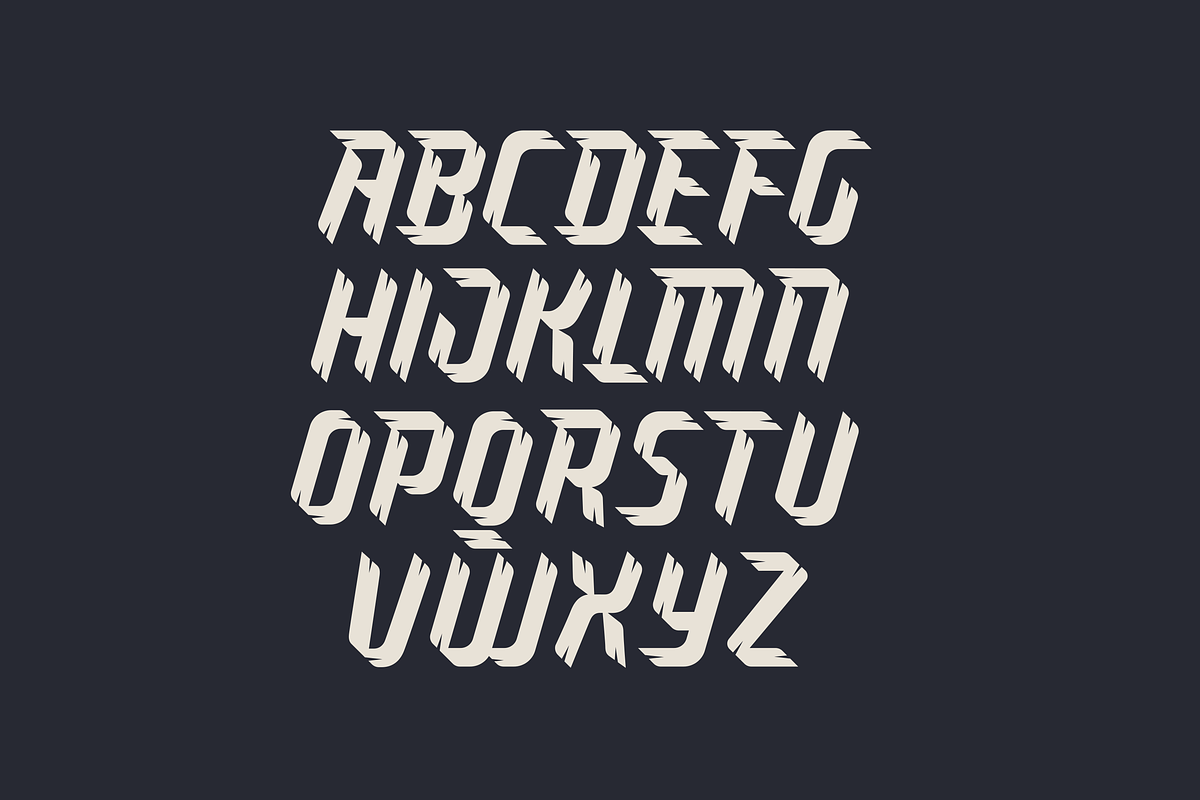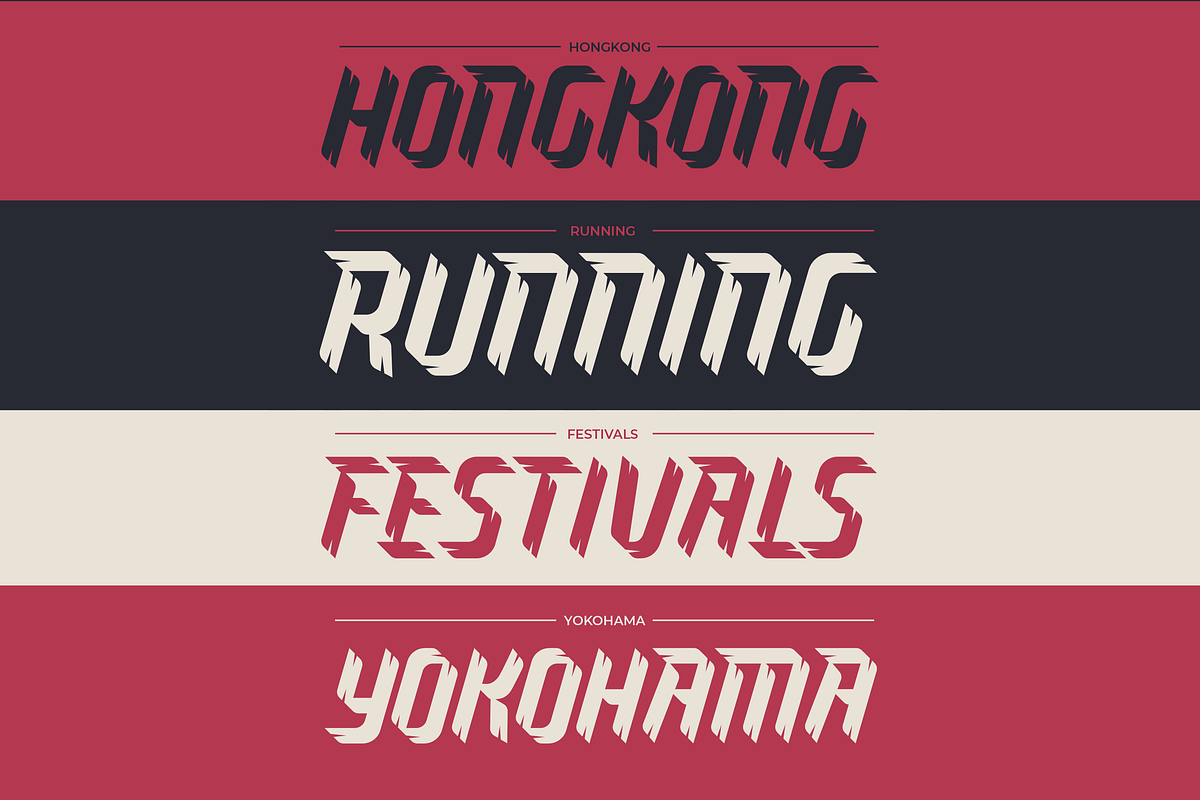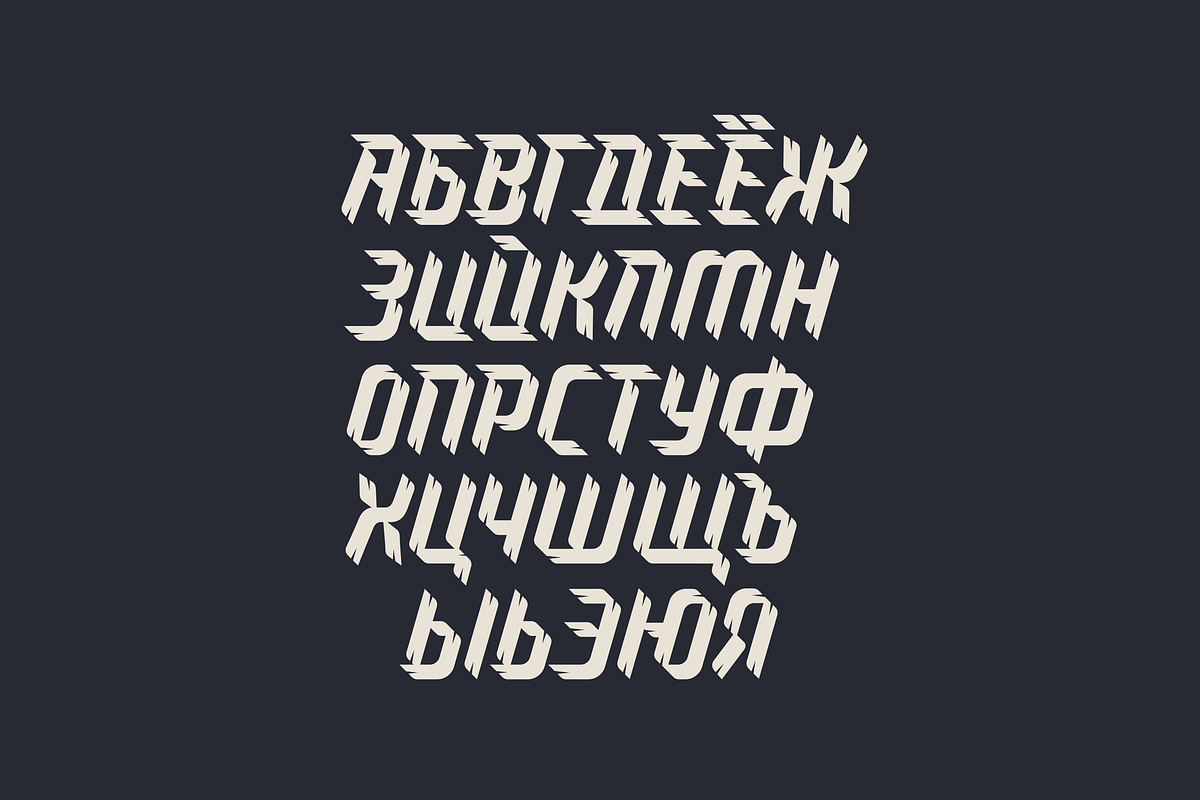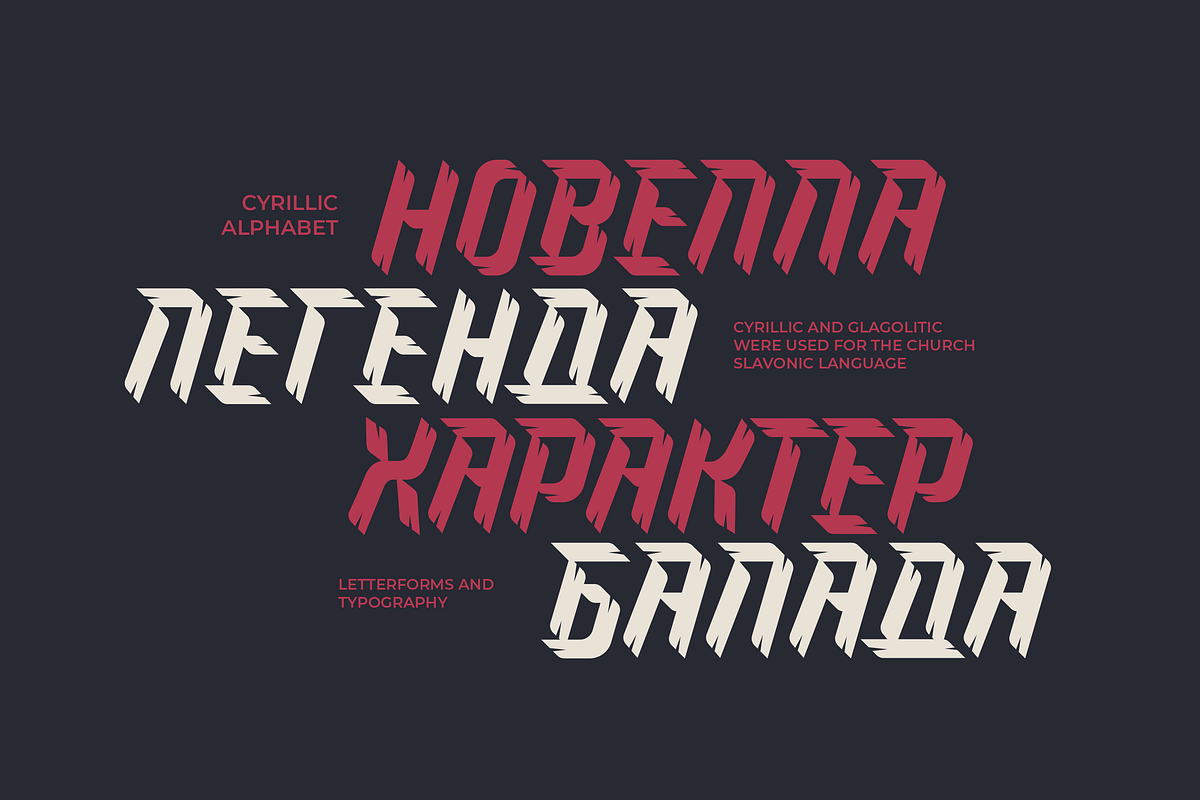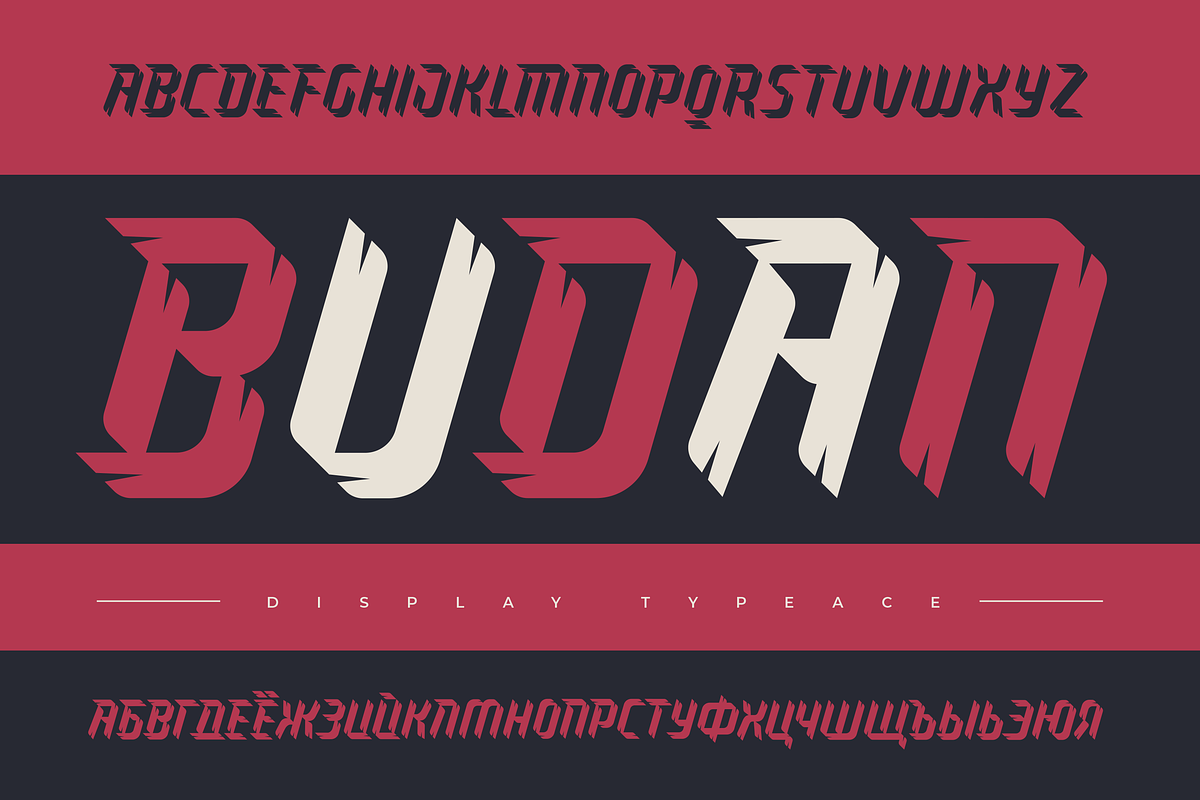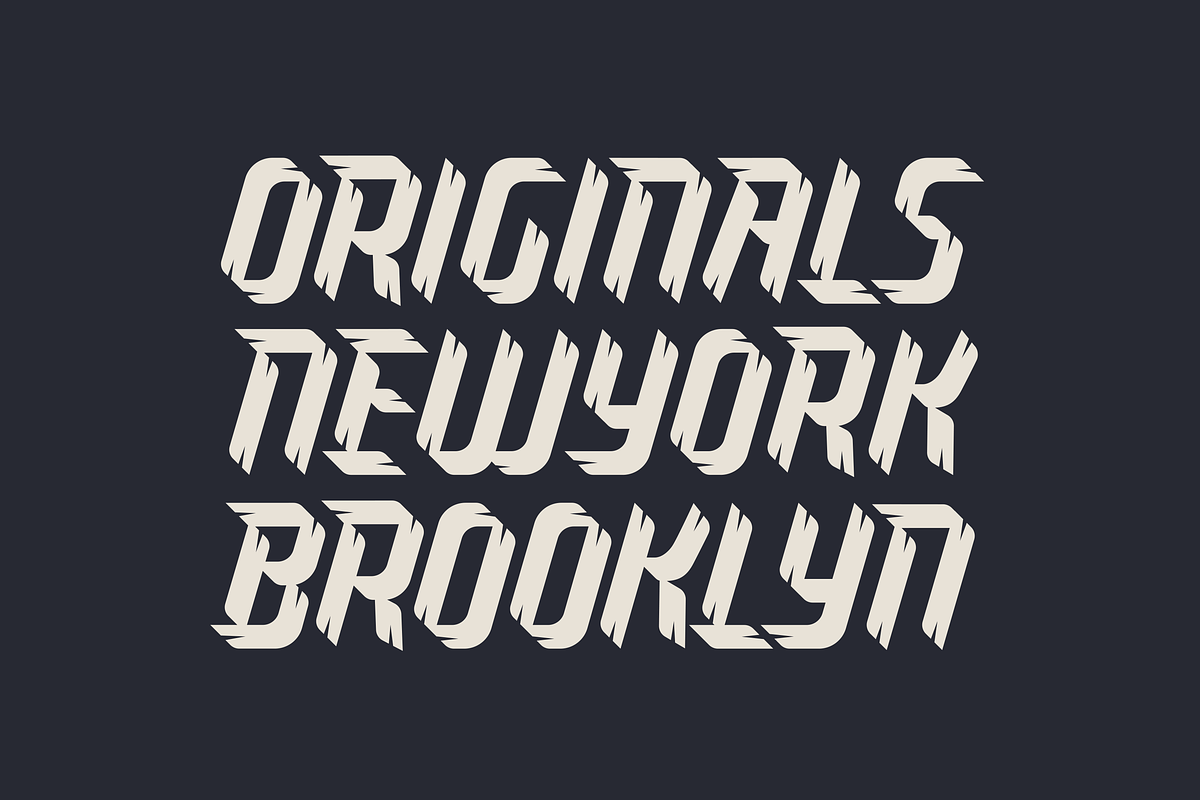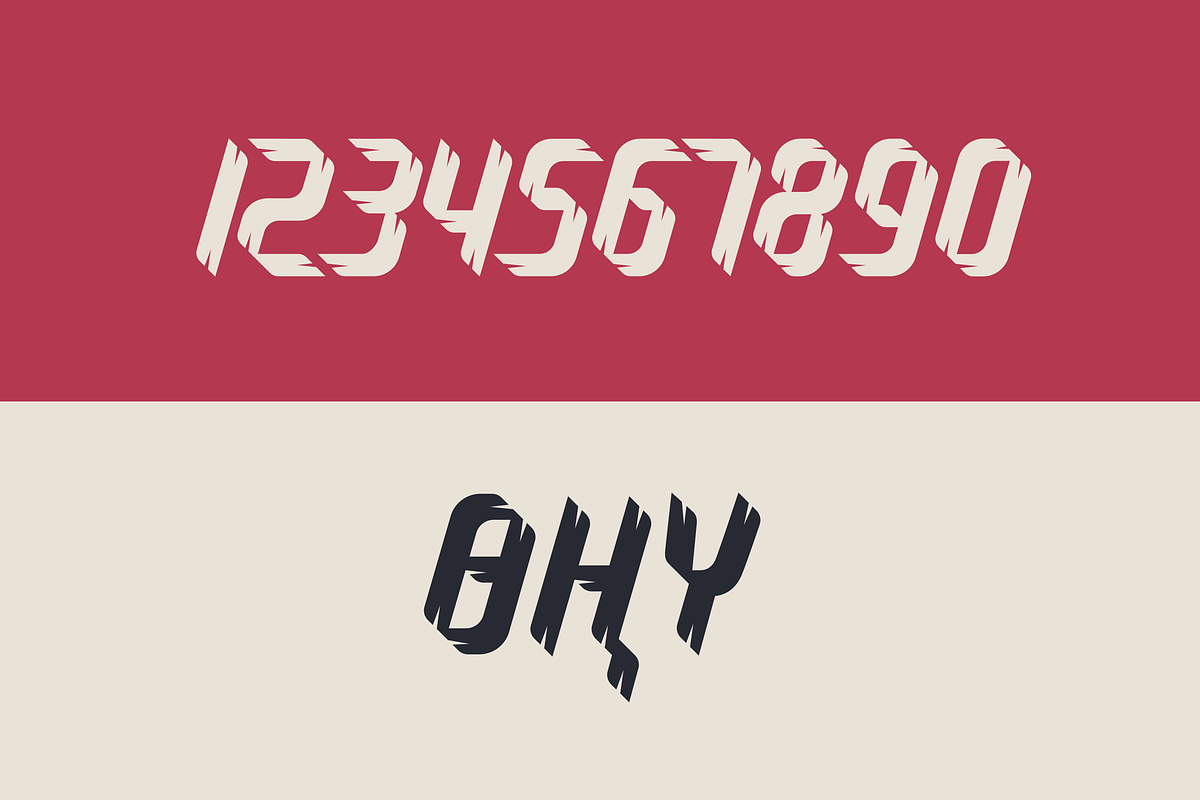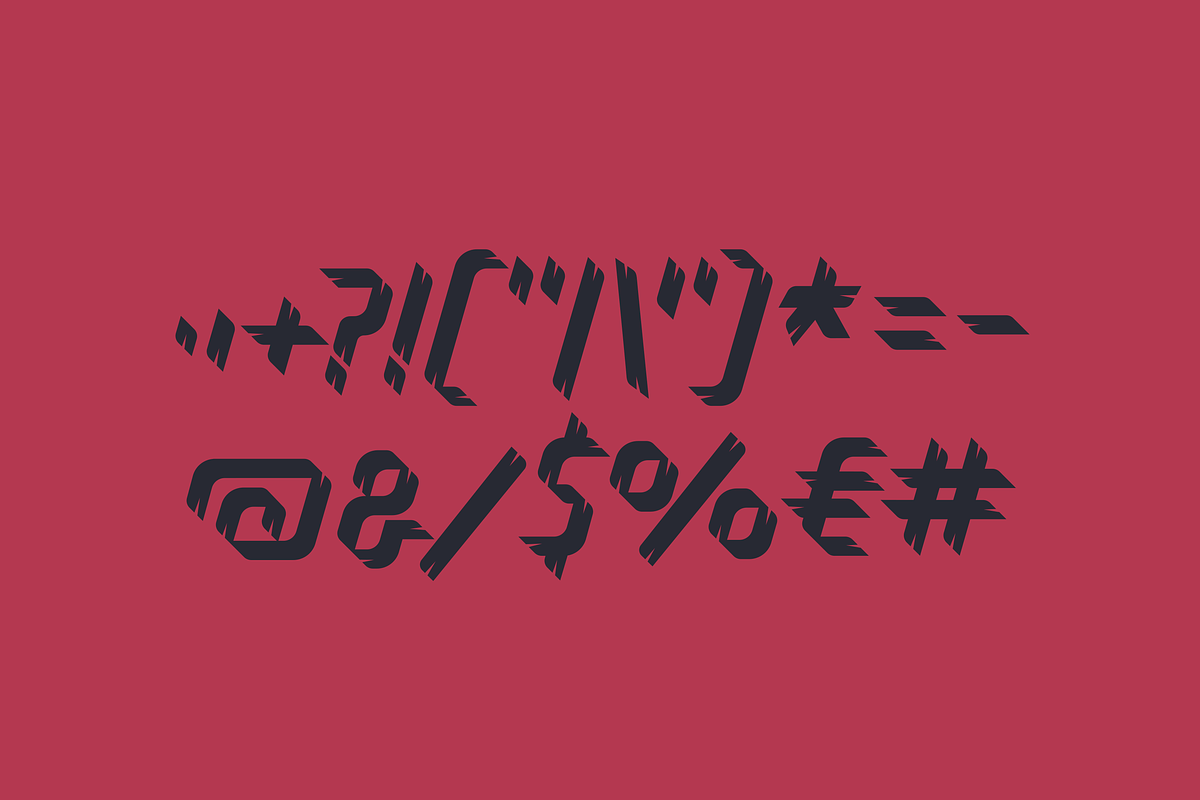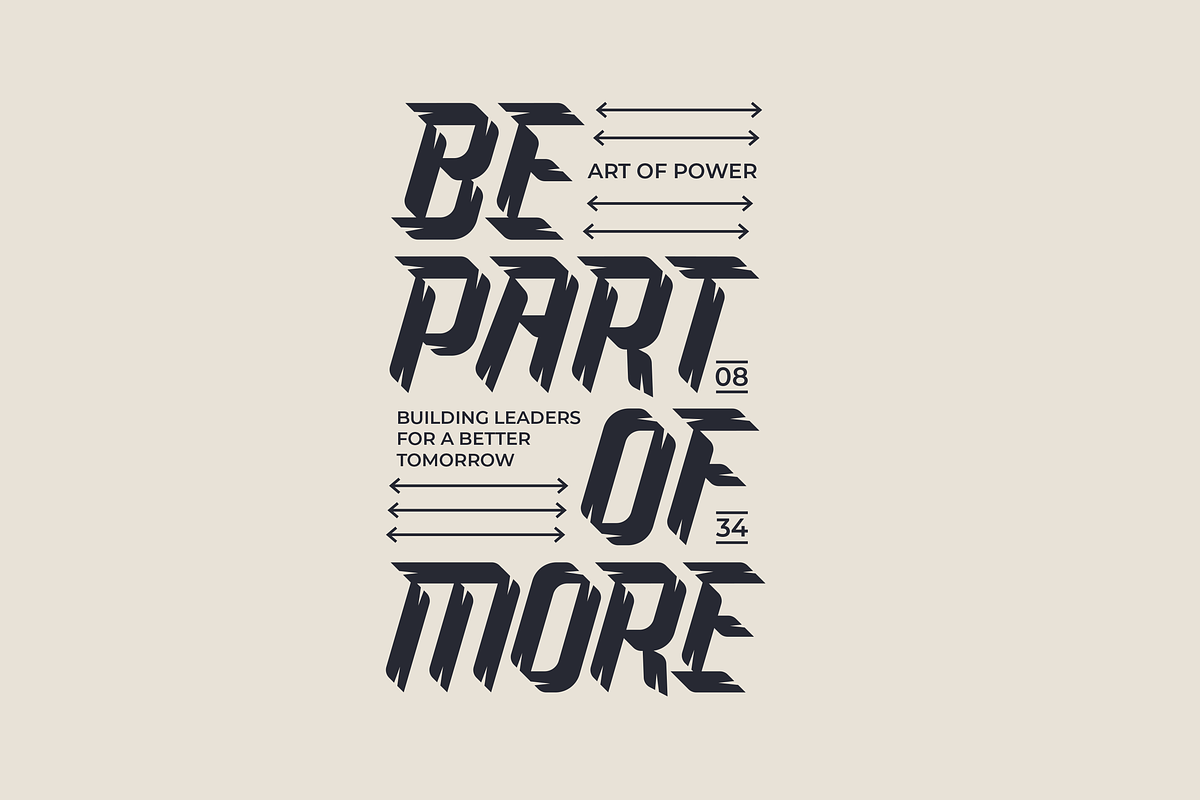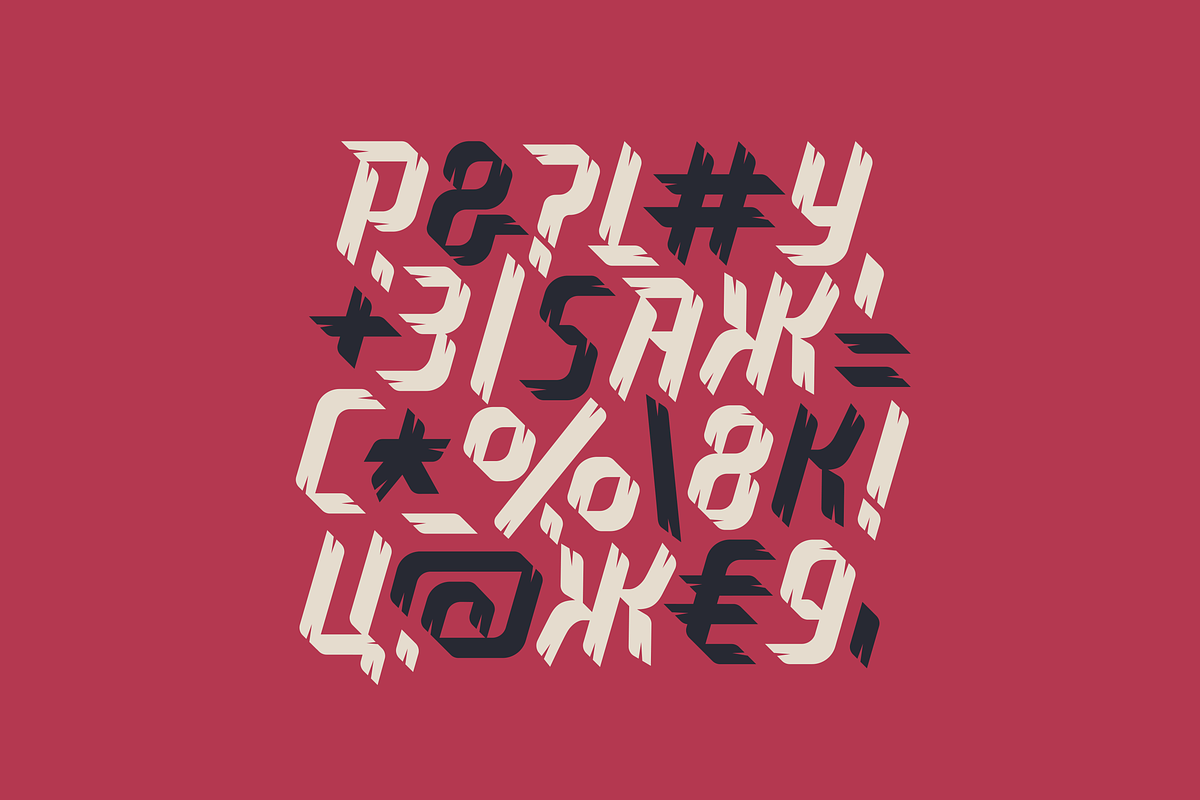
Budan - Display Font
Budan - Display Font will look gorgeous on all your designs, invitation, poster design, book design, branding materials, logo's, and all project design other.
Budan - Display Font all character is a Uppercase, includes numbers, punctuation. You will receive TTF files & WEBFONT.
Cyrillic characters are also included in the font, making it versatile for a broader range of design projects.